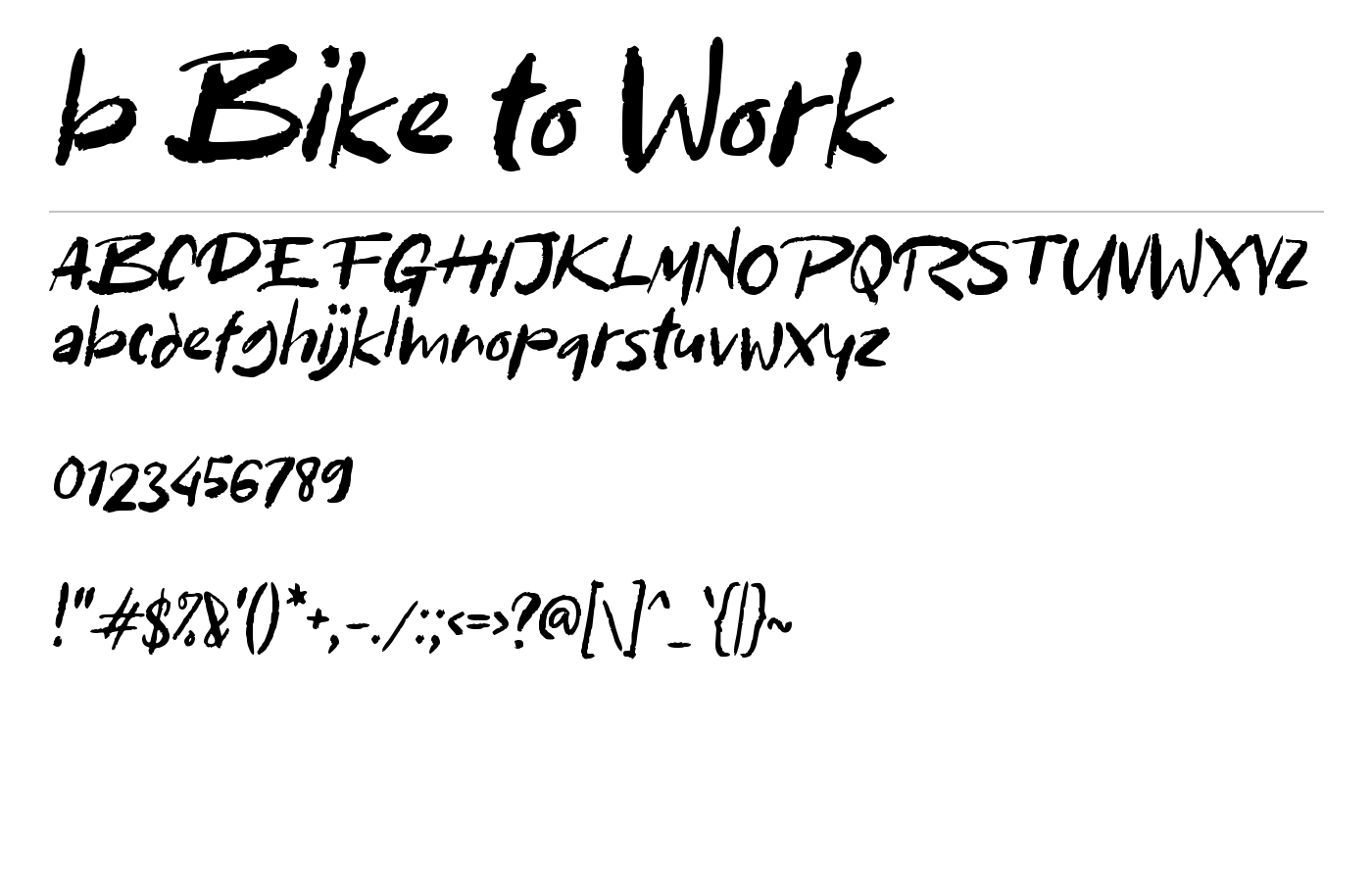
b Bike to Work is a lively, brush-script style font that brings a casual, hand-painted feel to any design. Its uneven strokes, high contrast, and energetic letterforms give it a playful yet bold personality, perfect for capturing attention with a personal touch. This font works wonderfully for creative headlines, posters, branding projects, and any context where a dynamic, informal vibe is desired.
b Bike to Work Font